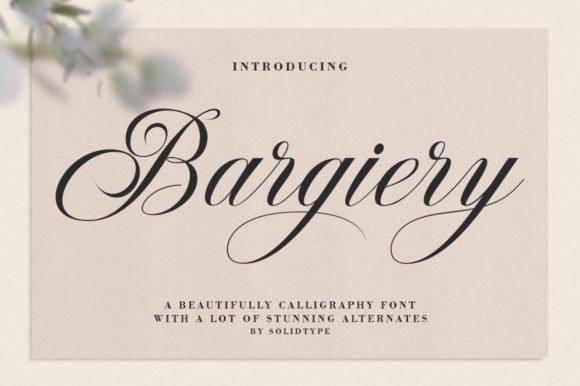
The Perfect Font for Your Heartfelt Designs
As a designer, you’ve probably experienced that moment when a client asks you to create a custom wedding invitation, and you’re left wondering how to make it truly special. You search through font libraries, scrolling through rows of sans-serifs and serifs, until you stumble upon a gem that makes your heart skip a beat.
This is where Bargiery Font comes in – a romantic and sweet calligraphy typeface that adds a touch of elegance to any design. With its dancing characters along the baseline, it’s perfect for creating personalized styles that leave a lasting impression. Whether you’re designing wedding invitations, thank you cards, or greeting cards, Bargiery Font is sure to bring a sense of warmth and love to your work.
As a valuable tool for designers, Bargiery Font offers PUA encoding, making it easy to access all its glyphs and swashes. This means you can experiment with different styles and designs without any limitations, giving you the creative freedom to bring your ideas to life.
Bargiery Font Key Features
- Unique Characteristics: The font features a unique blend of handwritten and serif styles, making it perfect for creating a personal and elegant look.
Bargiery Font Review
As a designer, I was excited to dive into the Bargiery font. Here’s my honest review.
The Bargiery font has a unique and quirky charm to it, making it perfect for creative projects that need a touch of personality.
Its varied letterforms and subtle flair add visual interest to text, making it stand out on the page.
The font’s eclectic feel is well-suited for headings, titles, and short paragraphs where you want to grab attention.
While the Bargiery font has its strengths, it also has some limitations that designers should be aware of.
The font can be challenging to read in longer blocks of text due to its irregular letterforms and varying stroke widths.
It may not be the best choice for body text or large amounts of copy where readability is a priority.
Overall, the Bargiery font is a great addition to any designer’s toolkit, especially for projects that need a bold and playful touch. While it may not be suitable for all types of projects, it’s a fun and versatile font that can add a lot of character to your designs.
For the best results, use Bargiery Font for headings and titles, as its unique style and flair make it perfect for grabbing attention.
It’s also great for creating a vintage or distressed look, making it ideal for retro-themed designs, invitations, and posters.